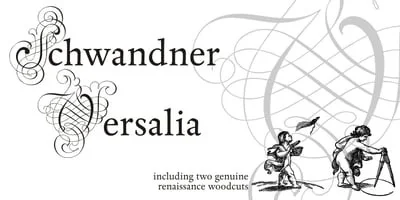
Schwandner Versalia Font
The Schwandner Versalia Font is an exquisitely intricate and historically inspired display typeface, characterized by its ornate, highly decorative capital letters, directly emulating the complex and beautiful initialisms found in Renaissance-era calligraphy and illuminated texts. Imagine its captivating forms gracing the opening of a fine art publication, adding an authentic, grand feel to historical society documents, or creating stunning drop caps for luxury brands and ceremonial invitations. Its rich, detailed aesthetic and undeniable sense of artistry also make it an excellent choice for unique certificates, elegant personal emblems, sophisticated book covers with a classical theme, and any design where a touch of traditional grandeur and intricate beauty is desired. Whether you're aiming for a lavish, historical look or a distinguished, artistic statement, Schwandner Versalia Font delivers with its unmistakable character, ensuring your visuals are both intriguing and truly memorable.
What makes Schwandner Versalia Font so exciting is its profound ability to transport viewers to an era of elaborate craftsmanship and artistic reverence. In a visual landscape often dominated by modern simplicity, this font offers a refreshing dive into the ornate beauty of historical lettering. It’s more than just a typeface; it’s a design element that can instantly set a ceremonial and majestic tone for a project, making content feel more profound and aesthetically rich. Designers will find it an invaluable asset for creating visuals that truly resonate with an audience seeking connection with heritage, artistic detail, and a sense of timeless splendor. It's especially powerful when used sparingly, allowing each initial to shine as a small work of art, and for this reason, the Schwandner Versalia Font is an invaluable resource.
The Schwandner Versalia Font family is typically structured as a specialized collection of decorative initial capitals rather than a comprehensive text font. While it might only feature a single "weight" (its inherent decorative style), its "family" is expressed through the variety of unique designs for each letter of the alphabet, or stylistic alternatives within those designs. You would typically find: a robust Schwandner Versalia Regular which forms the core design, rich with historical detail and ornate flourishes. Additionally, given its specialized nature, many such fonts offer Alternative Glyphs or Stylistic Sets for certain letters. These allow for greater customization and provide variations on the decorative themes, reflecting the diverse and often unique embellishments found in original historical manuscripts.